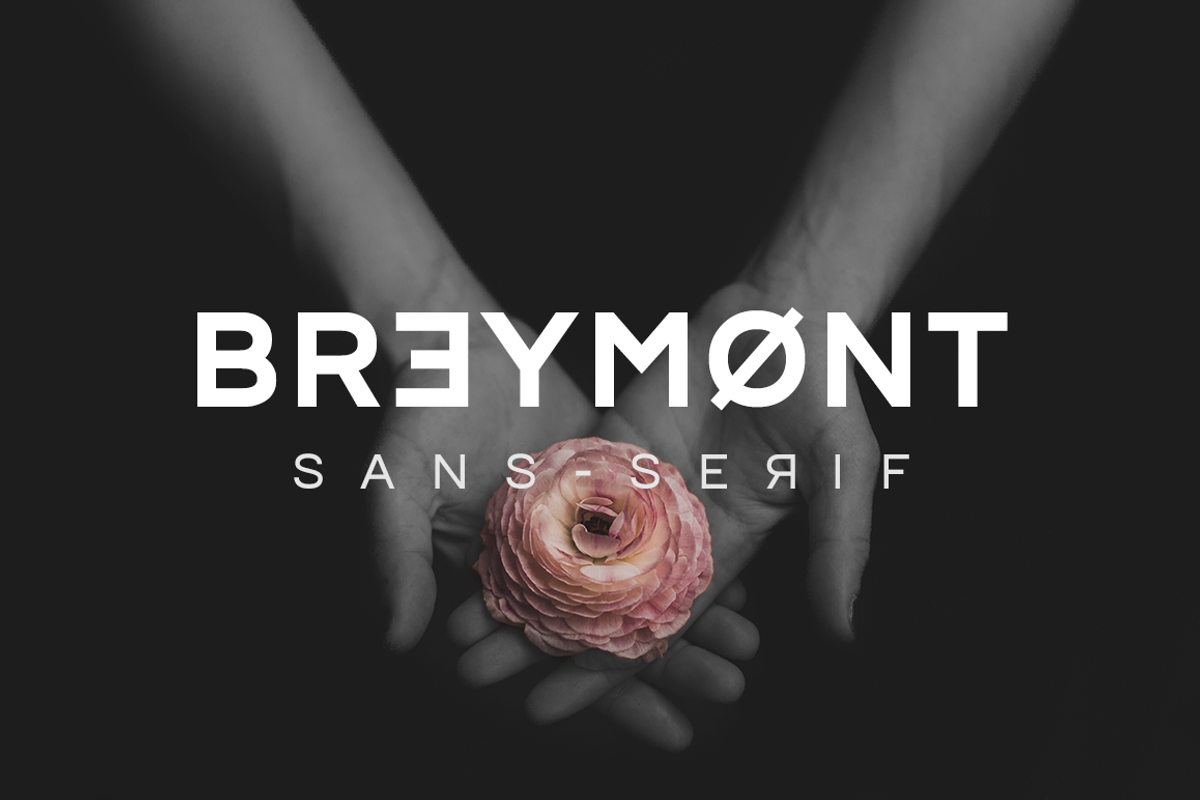
The Breymont Sans Font Free Download is a sleek and modern sans-serif typeface designed to bring clarity and simplicity to your designs. Featuring clean lines and a balanced structure, this font is perfect for creating minimalistic logos, branding, websites, editorial layouts, and marketing materials. Whether you’re working on a corporate project, a creative campaign, or a contemporary brand, Breymont Sans adds a professional and polished touch to your work.
Breymont Sans Font Free Download is ideal for designers looking to create modern, readable typography that exudes simplicity and sophistication. Perfect for clean branding, websites, or professional content, this font will elevate your designs with its fresh, minimalist style. Download it today and bring a contemporary look to your creative projects with Breymont Sans!